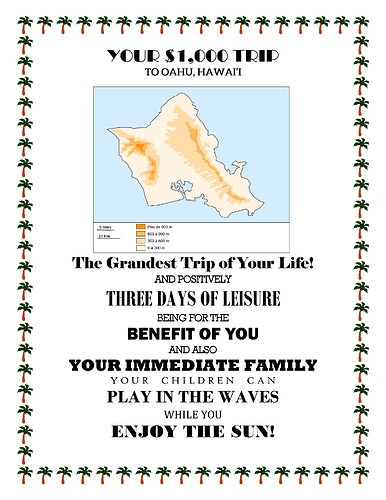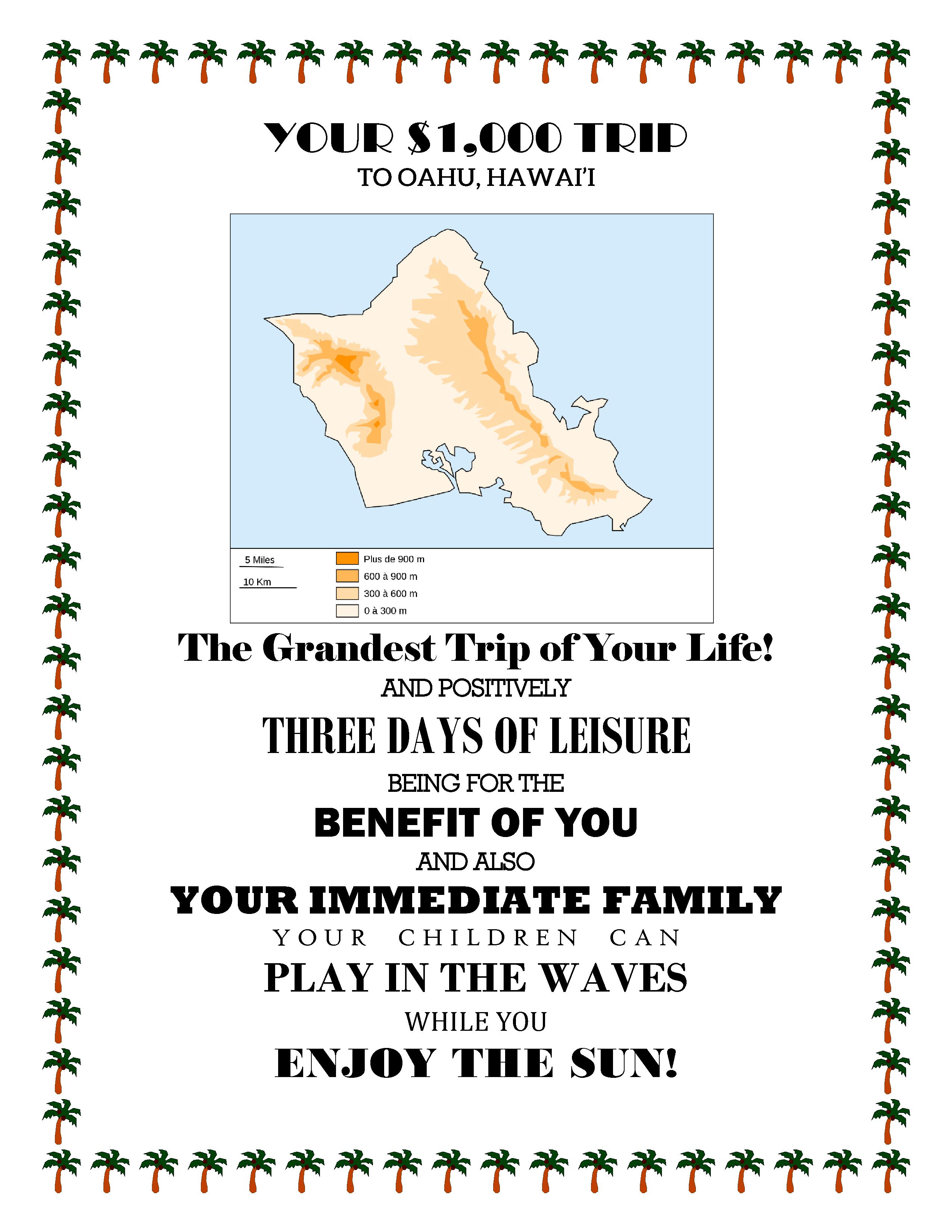
I made a poster for no apparent reason and I wanted to see what everyone thought of its design. Maybe I need less bold or ALL CAPS.
Also, a challenge: Identify every font on the poster.
It’s garish and overwrought. How’s that? And as the Archduke said, “Too many palm trees.” [g]
Broadway
Rockwell or some other lightface Egyptian
Bodoni Heavy or similar
Bodoni Black condensed
Franklin Gothic Heavy
Beton
Times or Minion
More Bodoni
And even more Bodoni
You got most of the fonts right. Some of them are too like many other fonts to know what they are.